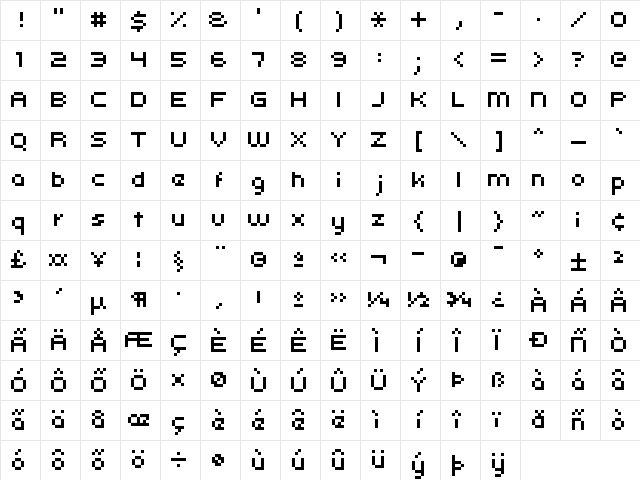
kroeger 05_53 Regular Free Font
kroeger 05_53 Regular
Design Context for kroeger 05_53
kroeger 05_53 is a composed and adaptable typeface that performs quietly and consistently across a wide range of design contexts.
Pro Tip: Use kroeger 05_53 in both headline and body roles to test its range before committing to a single application.